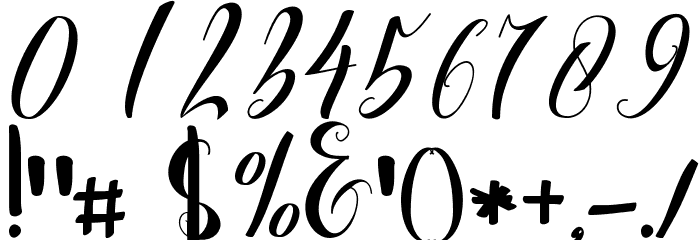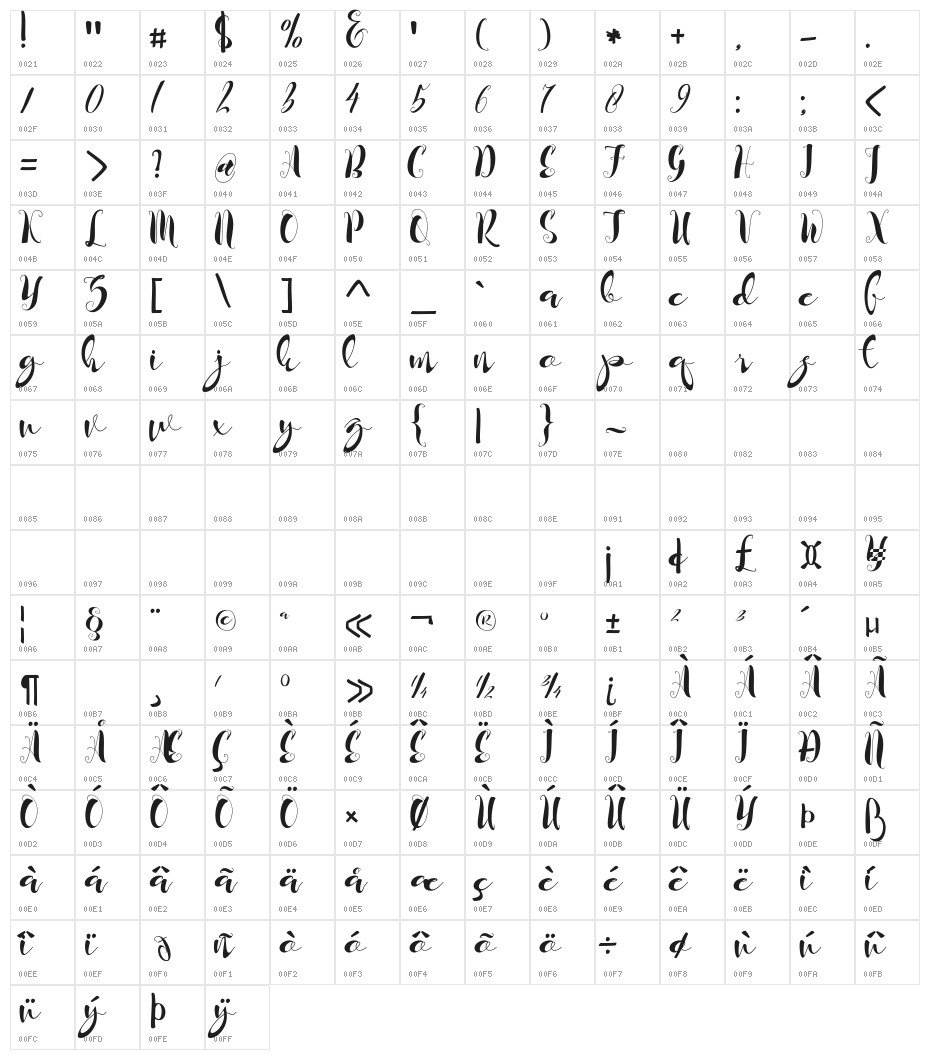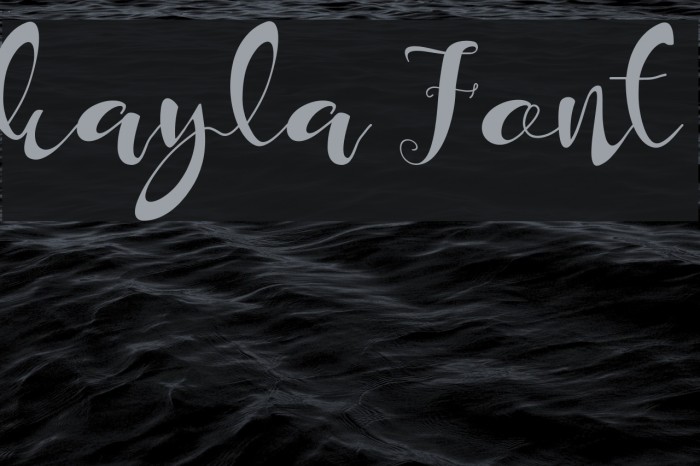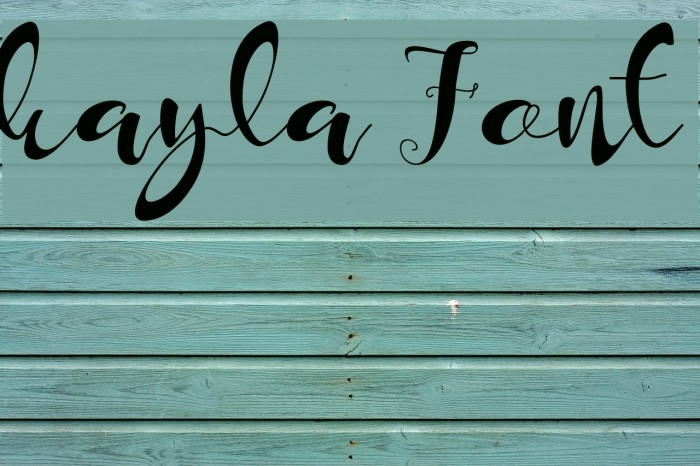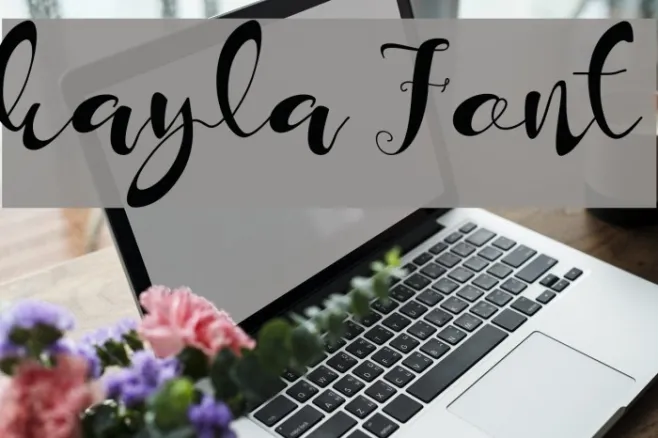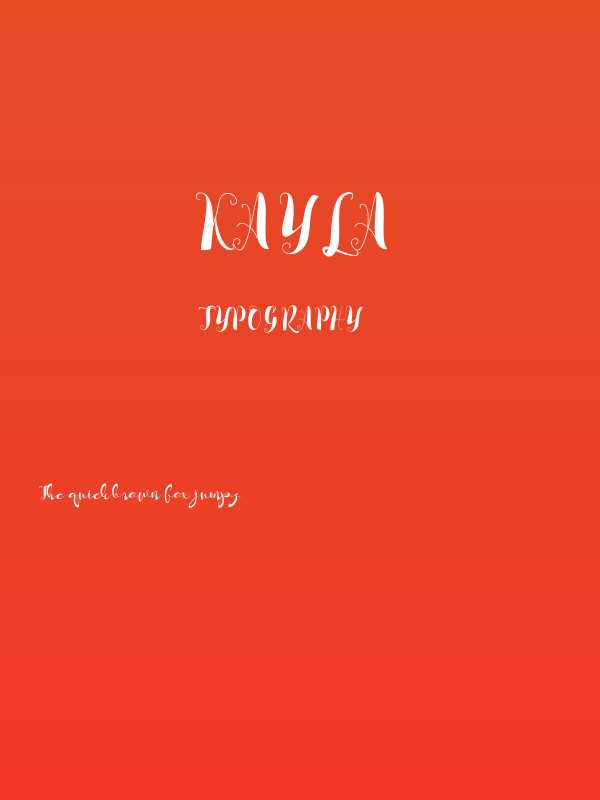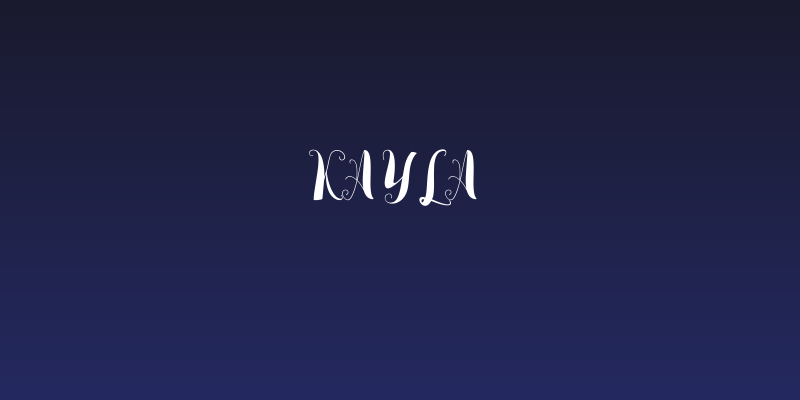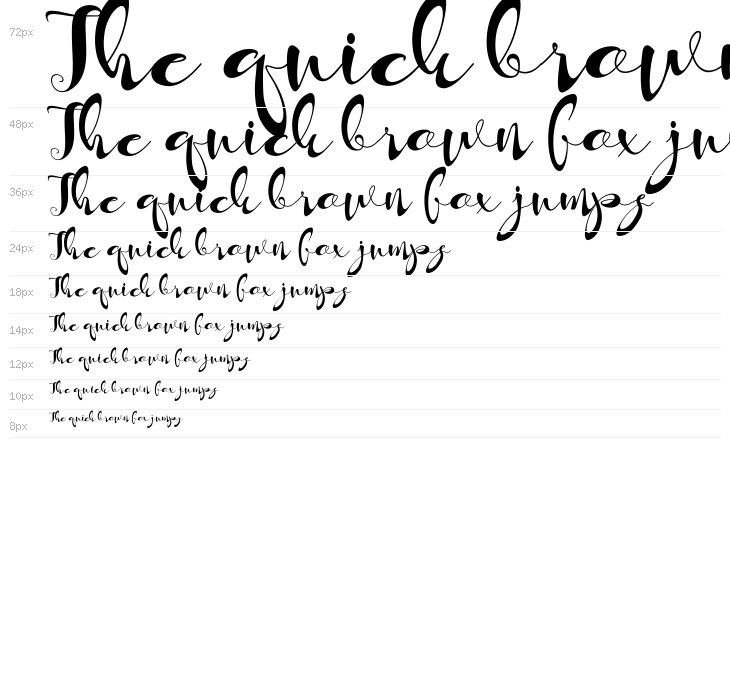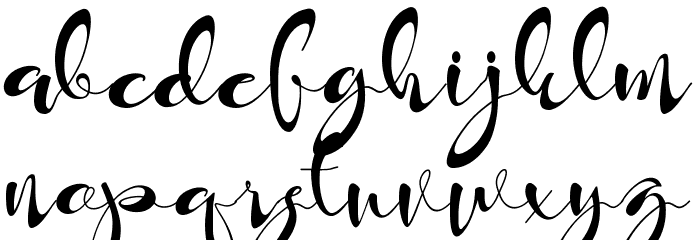
kayla Font
kayla Description
This font features an elegant and flowing script style, characterized by its graceful curves and flourishes. The uppercase letters are bold and dramatic, with sweeping lines that create a sense of movement and sophistication. The lowercase letters maintain a consistent fluidity, offering a harmonious balance between the characters. Numbers and special characters are designed with the same attention to detail, ensuring a cohesive look throughout. The overall design is both artistic and legible, making it suitable for a variety of creative applications.
Use CaseLogos, Invitations, Decorative Text
Proposed ProjectsIdeal for wedding invitations, greeting cards, branding projects, and elegant packaging designs.